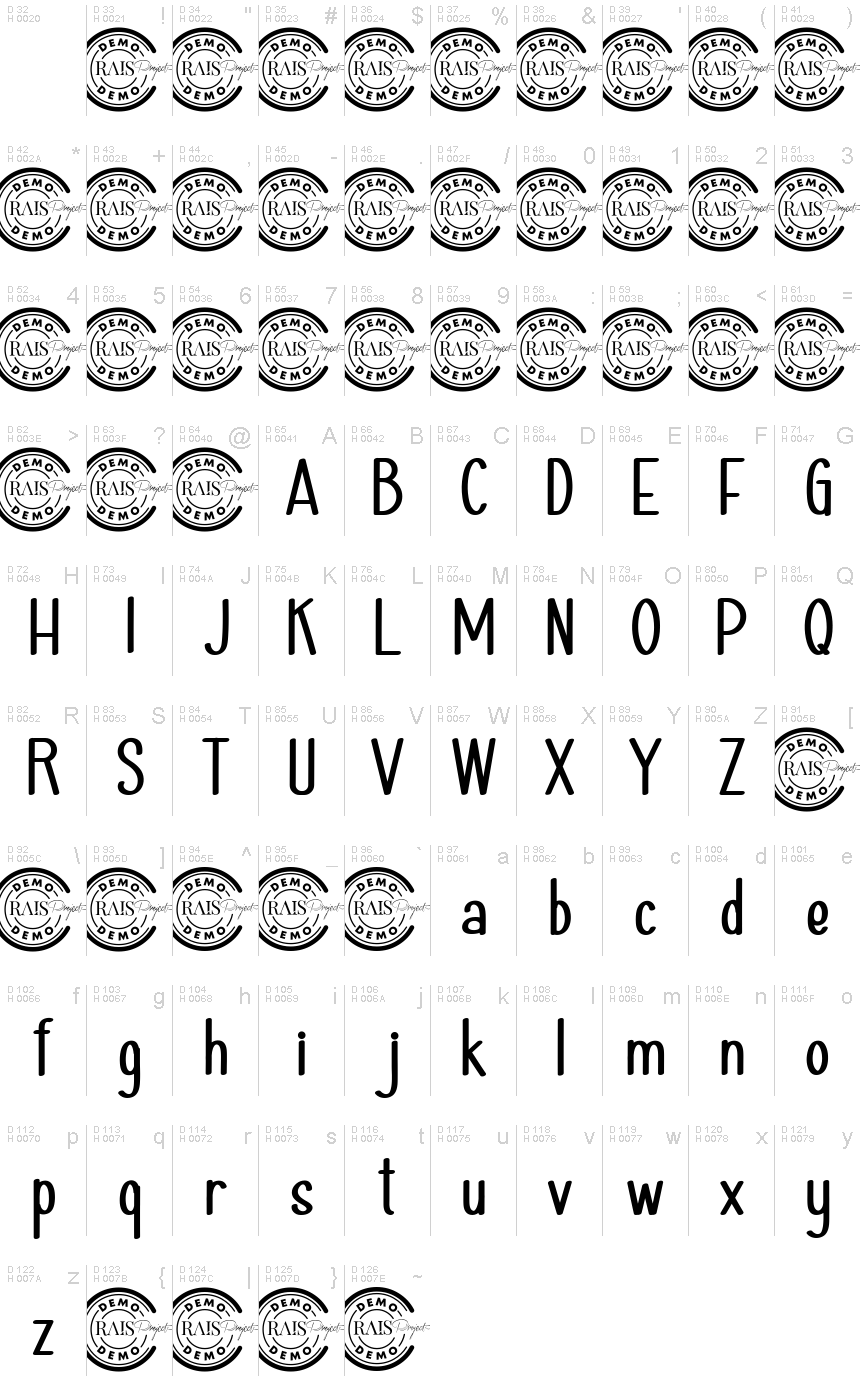
Haiesley Sans Bold exudes a sleek, modern charm with its condensed silhouette that stands out in the realm of display fonts. Crafted by RaisProject, this member of the Haiesley Sans family boasts clean lines and an uncluttered form, making it a standout choice for impactful headlines and eye-catching signage. Its boldness commands attention without overwhelming, offering a harmonious balance between assertiveness and elegance.
This font's versatility shines in branding projects, editorial designs, and advertising campaigns where space is at a premium but expression cannot be compromised. Haiesley Sans Bold is tailored for designers seeking to inject sophistication into their work while maintaining readability and visual interest.